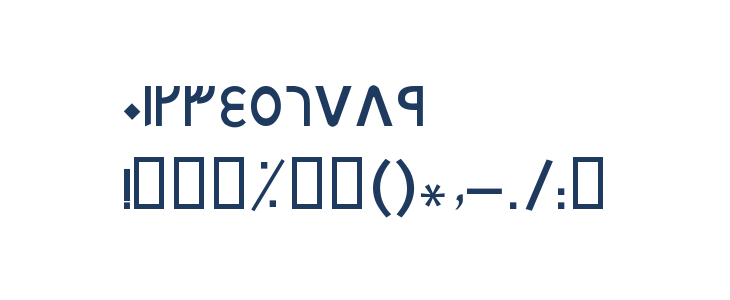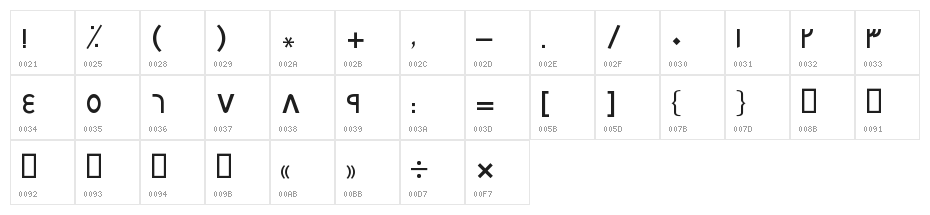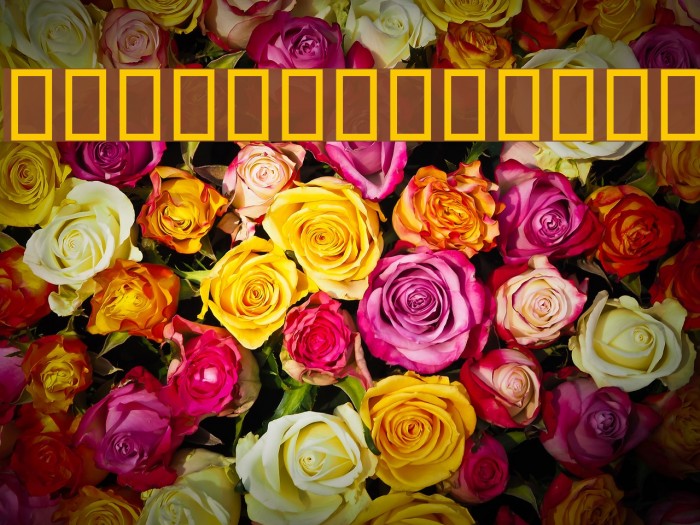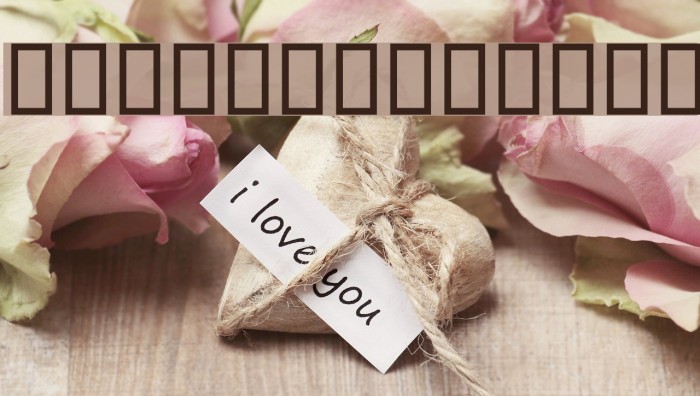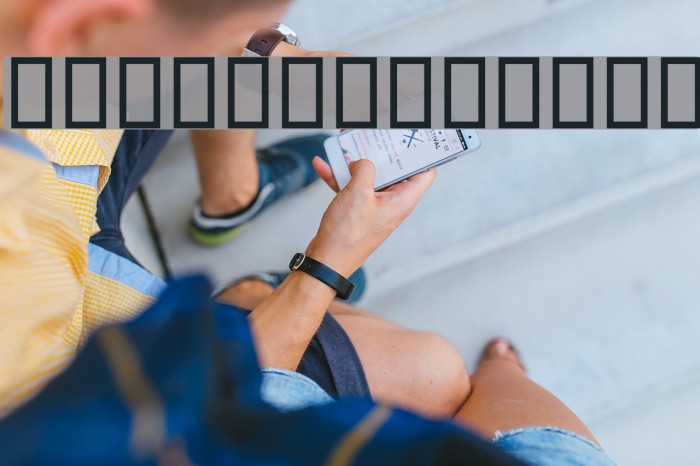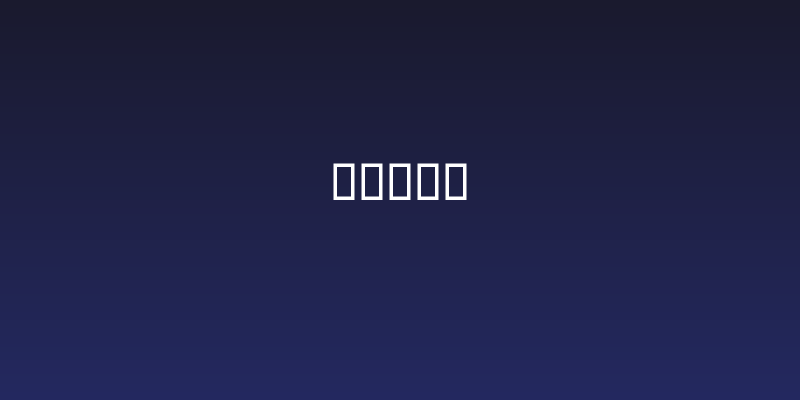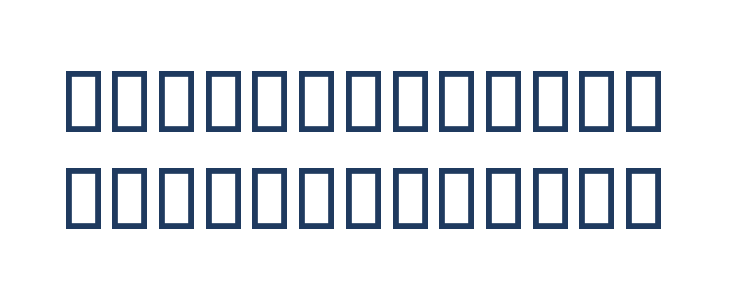
Ilyaa Font
Ilyaa Description
This font features a modern and clean design with smooth curves and a balanced structure. The characters are well-proportioned, offering a harmonious appearance. The numerals and special characters are distinct, ensuring readability across various applications. Its contemporary style makes it versatile for both digital and print media.
| Proposed Projects | Ideal for branding, digital media, advertising, and editorial design. |